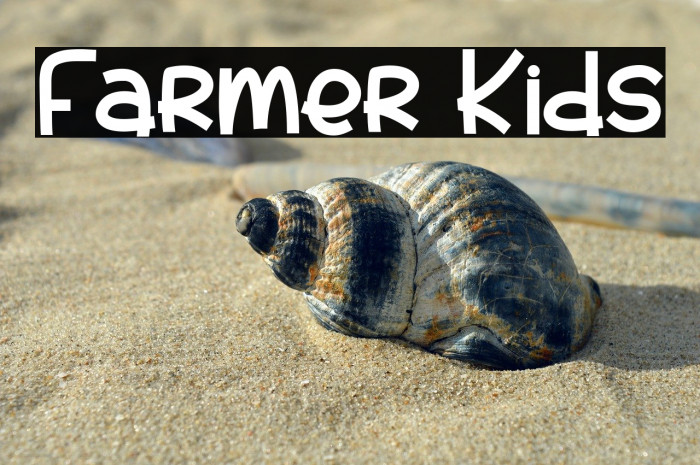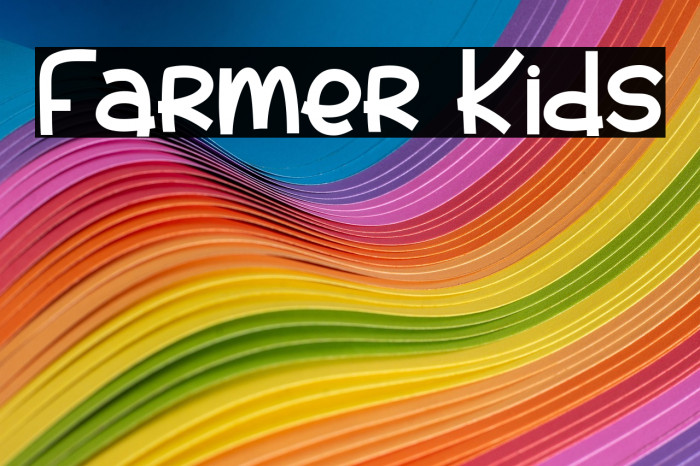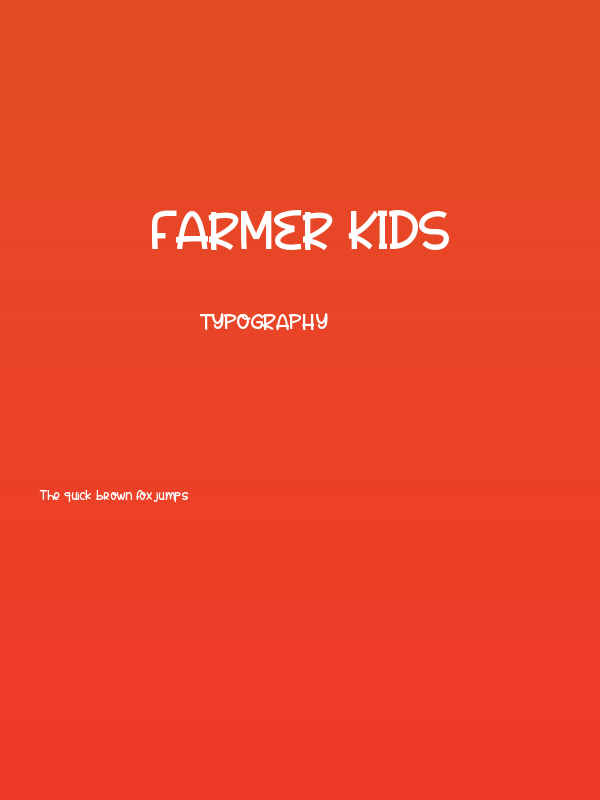
Farmer Kids Font
Farmer Kids Description
This playful and whimsical font features a handwritten style with bold, rounded characters. The letters have a casual, friendly appearance, with a slight tilt and uneven baseline that adds to its charm. The strokes are thick and consistent, providing a strong presence on the page. The font includes both uppercase and lowercase letters, numerals, and a variety of special characters, making it versatile for different uses. Its informal style is reminiscent of children's handwriting, making it ideal for projects that require a fun and approachable look.
| Proposed Projects | Ideal for children's books, educational materials, playful branding, and casual invitations. |